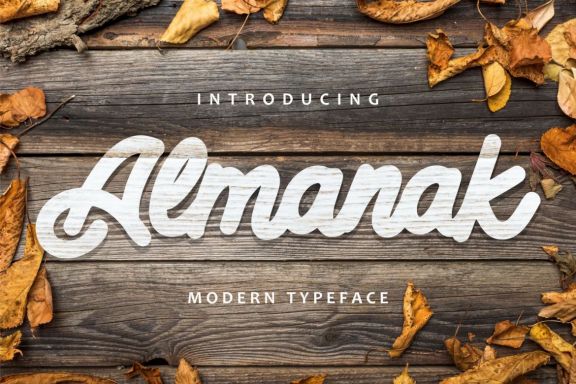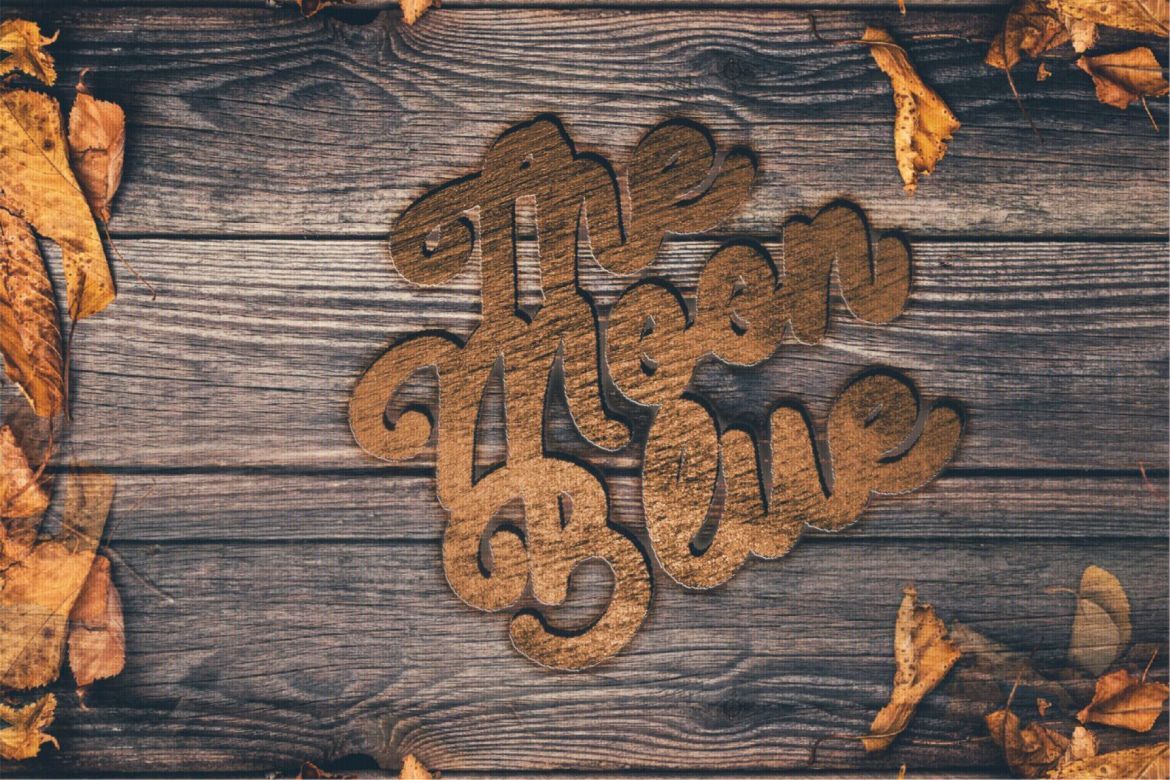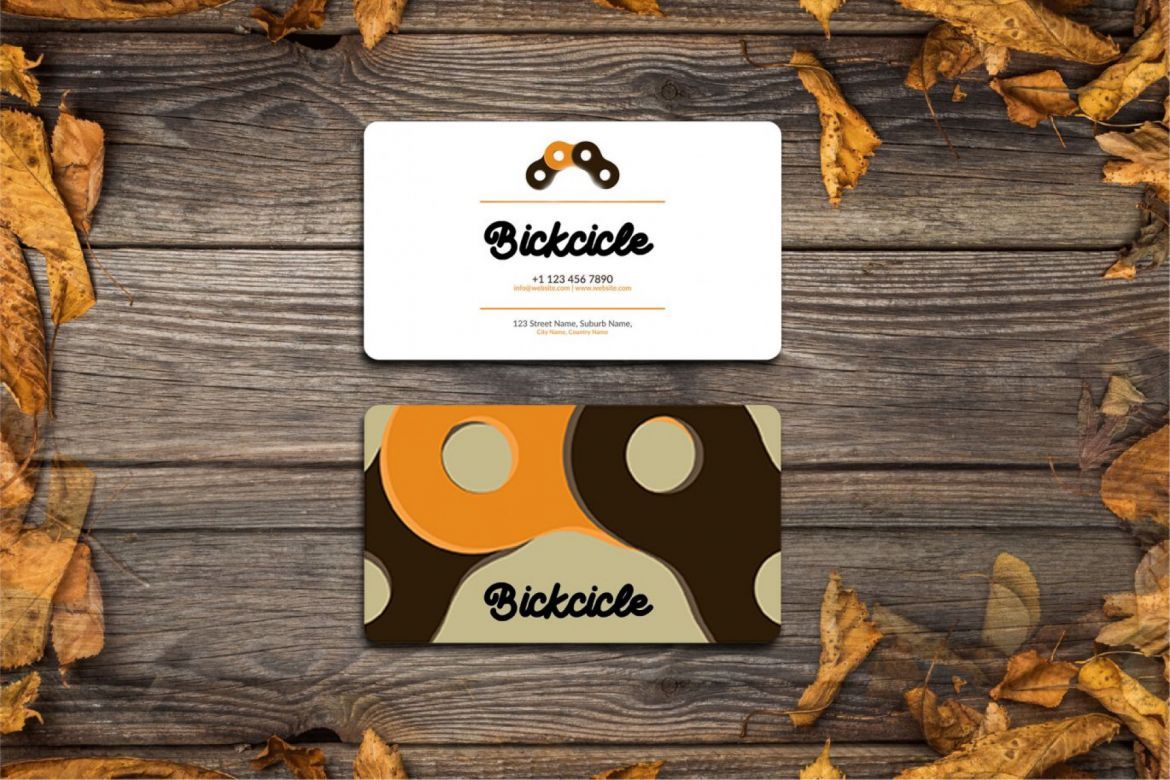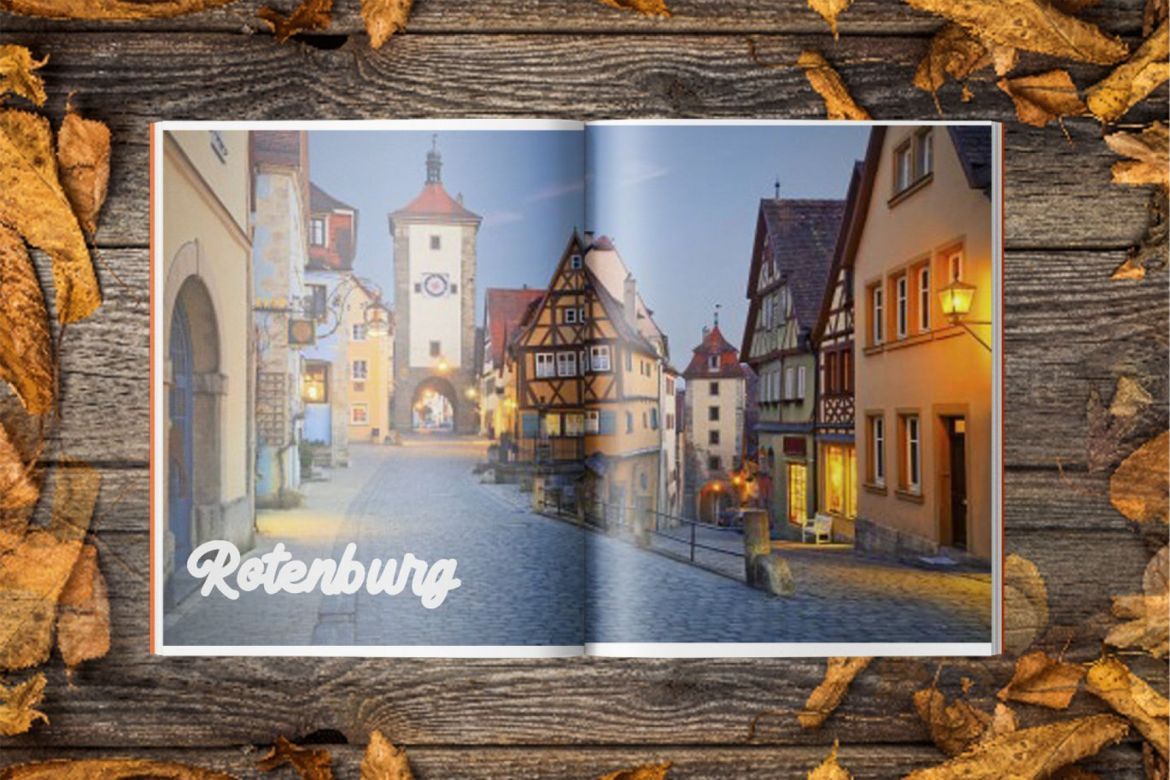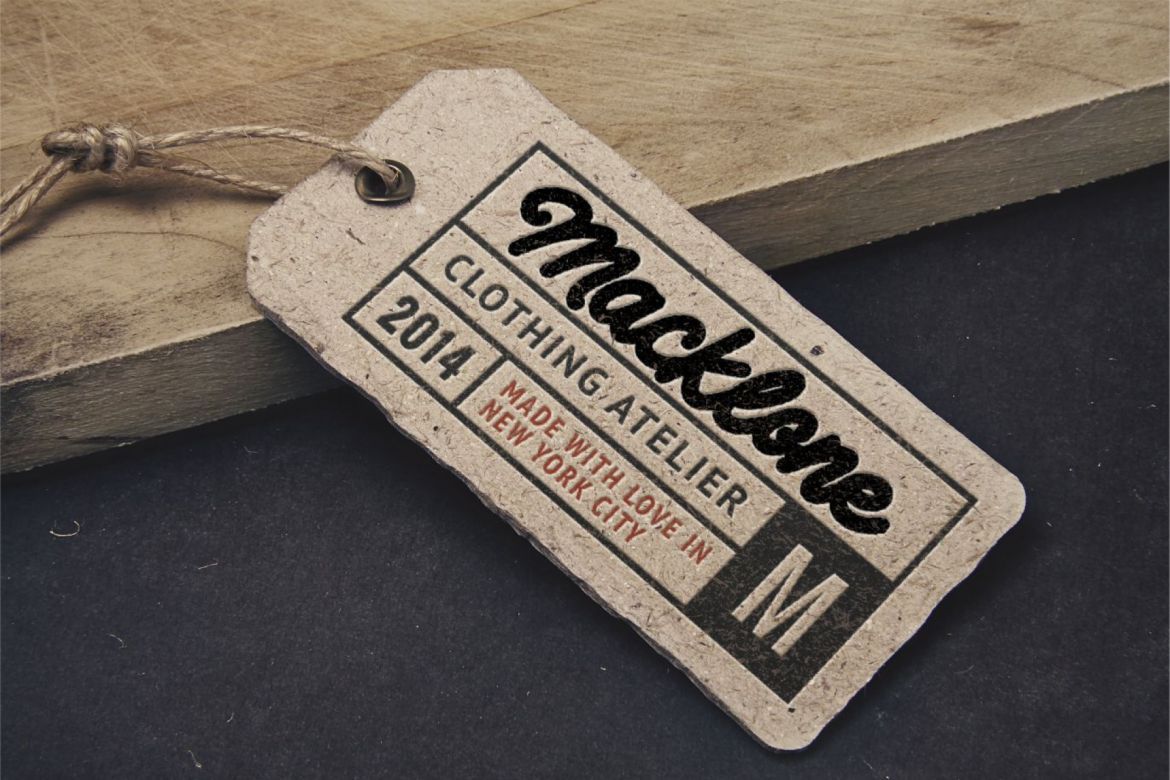
Almanak - Modern Typeface
So beautiful on invitation like greeting cards, branding materials, business cards, quotes, posters, and more!
• alternates and ligatures